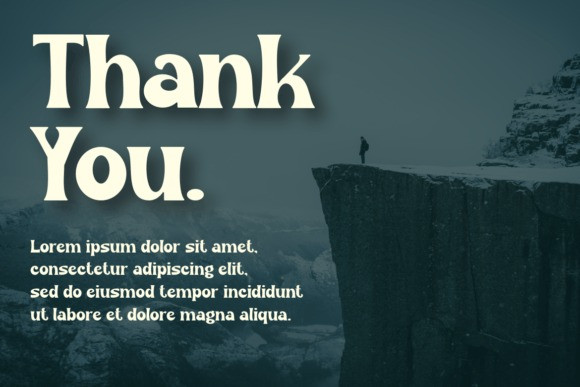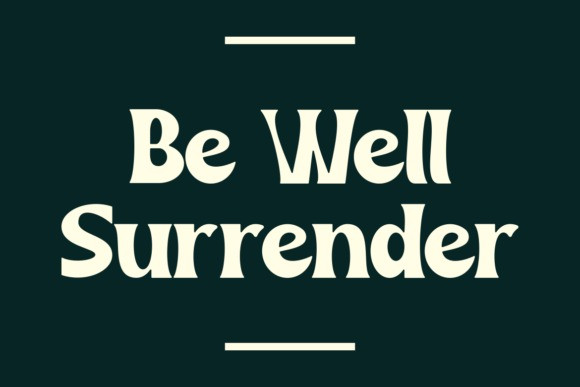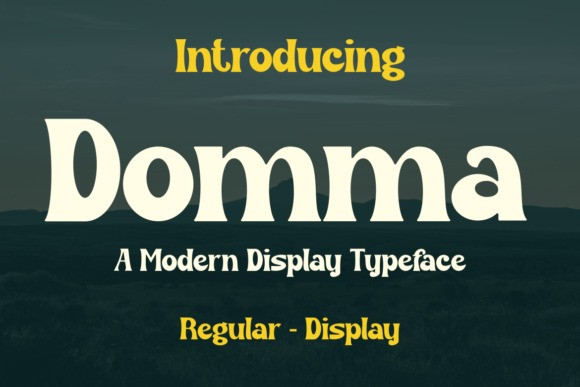
Domma Font
Domma Font is a modern, bold, and authentic display font suitable for any branding project such as logos, T-shirt printing, esports, and many more. Outstanding in a wide range of contexts, it will make your work extraordinary!